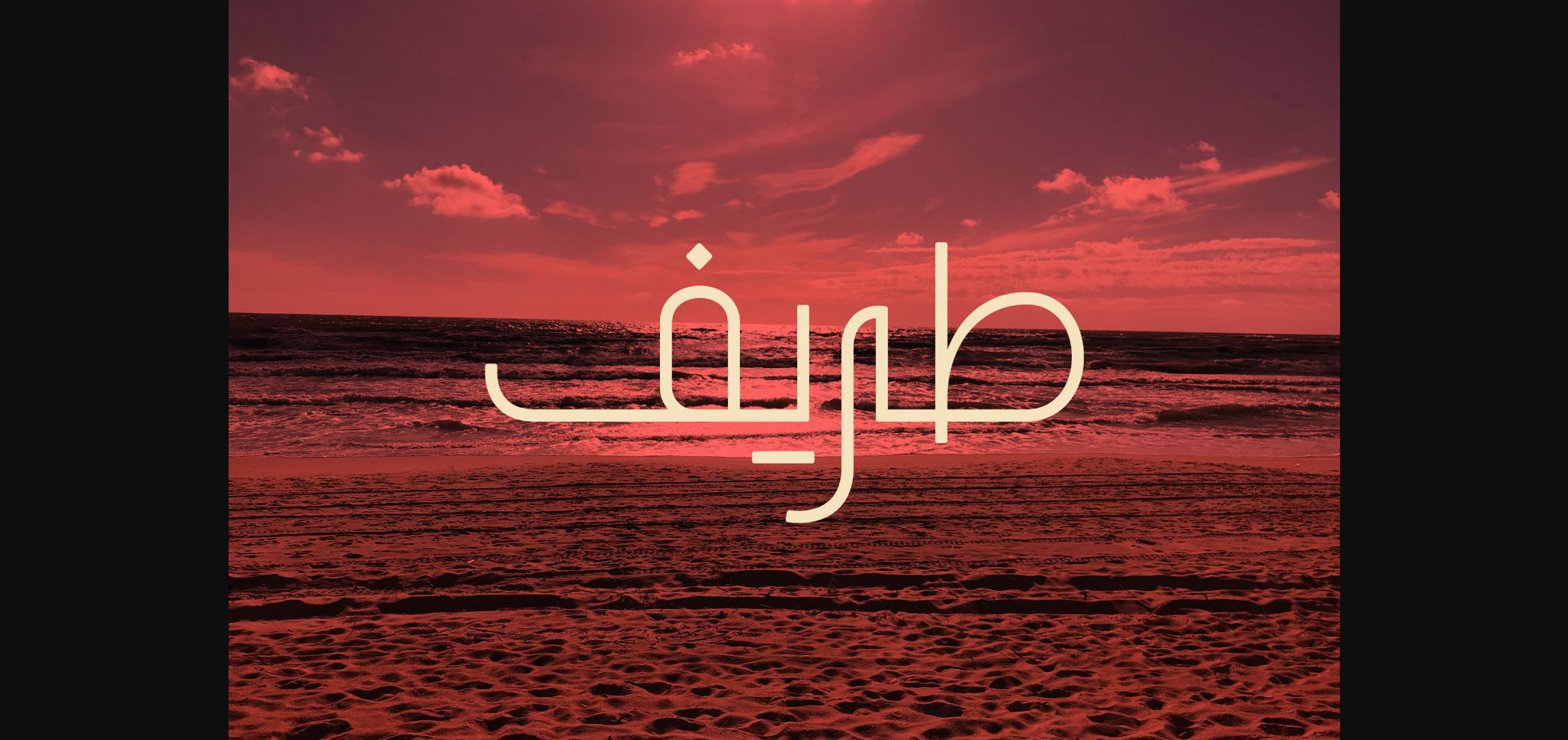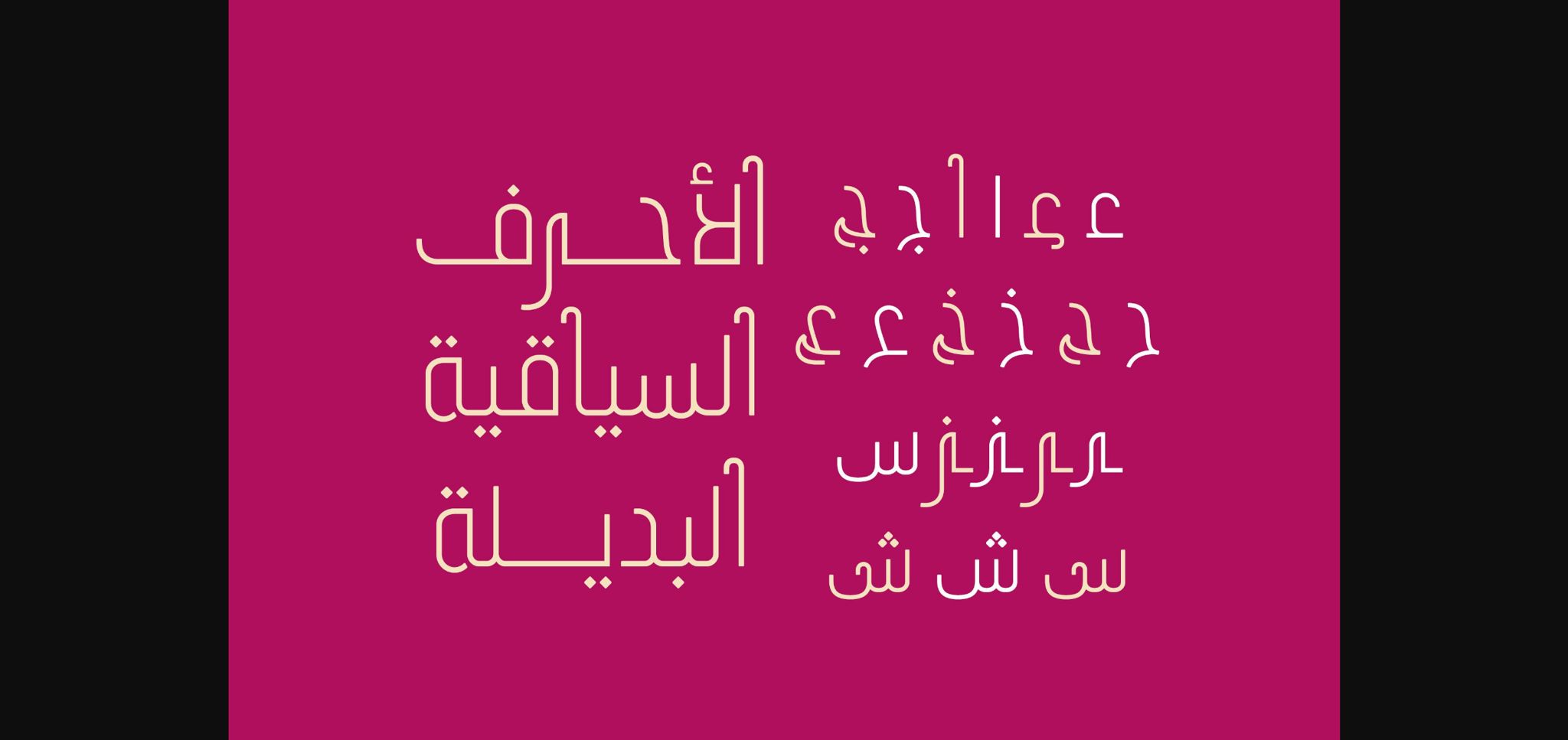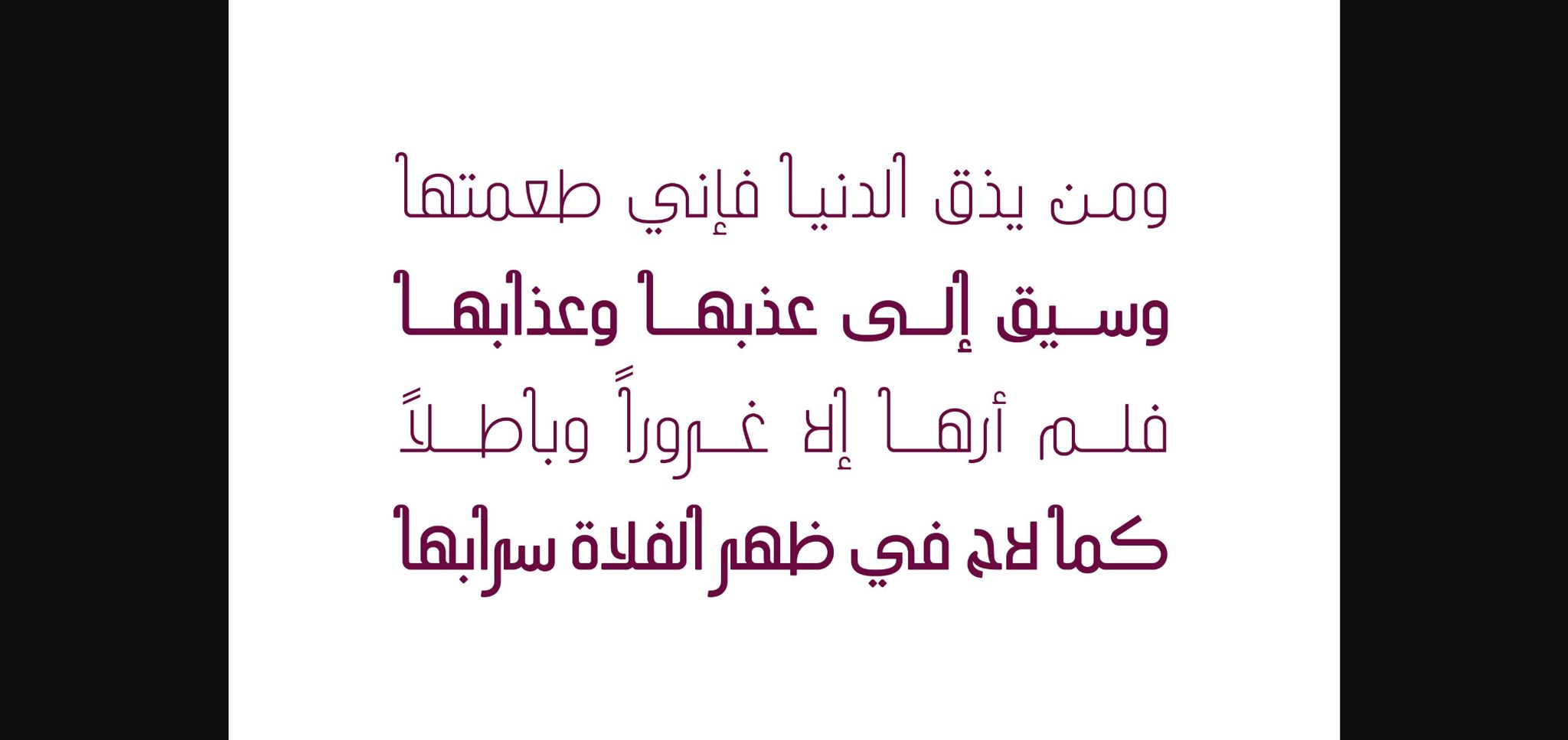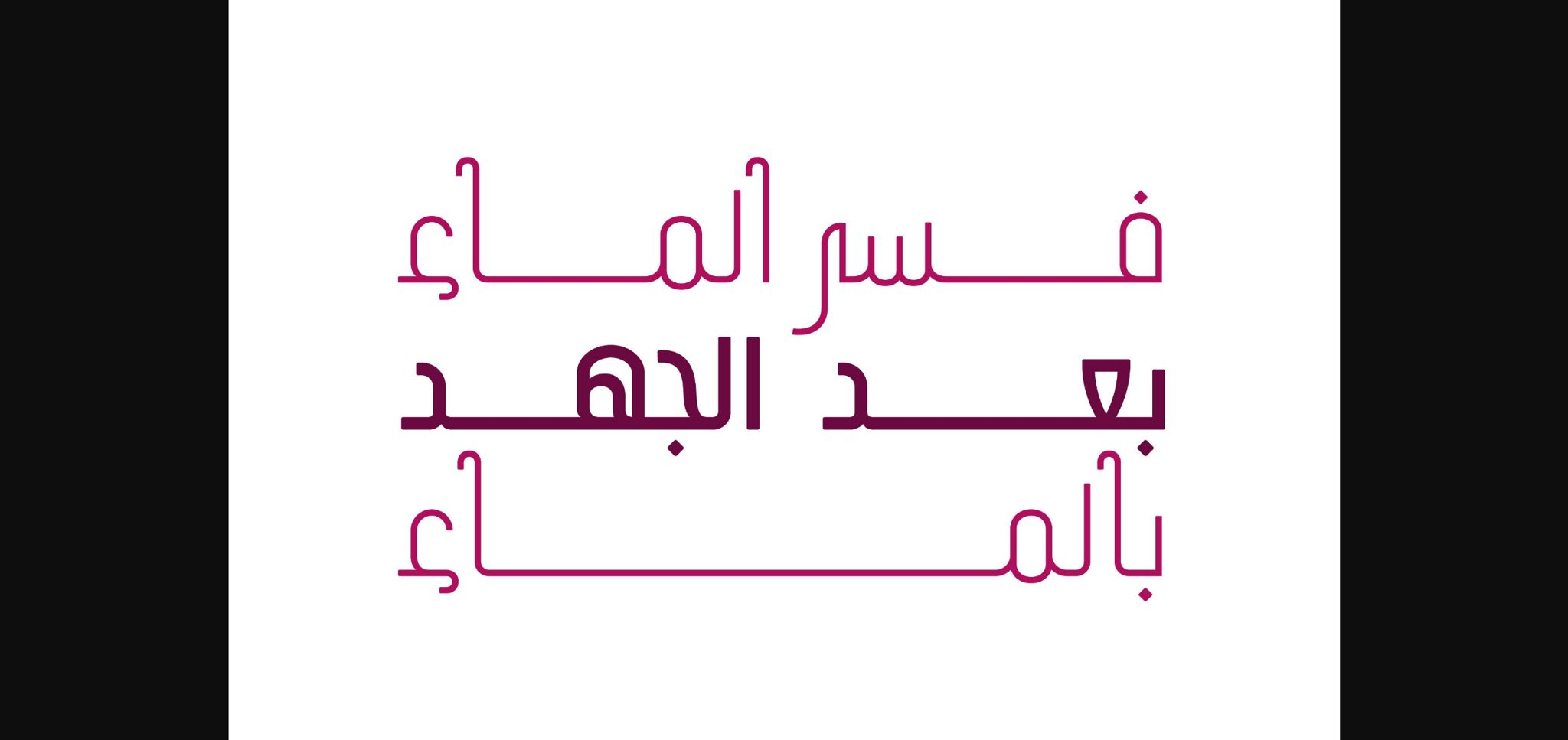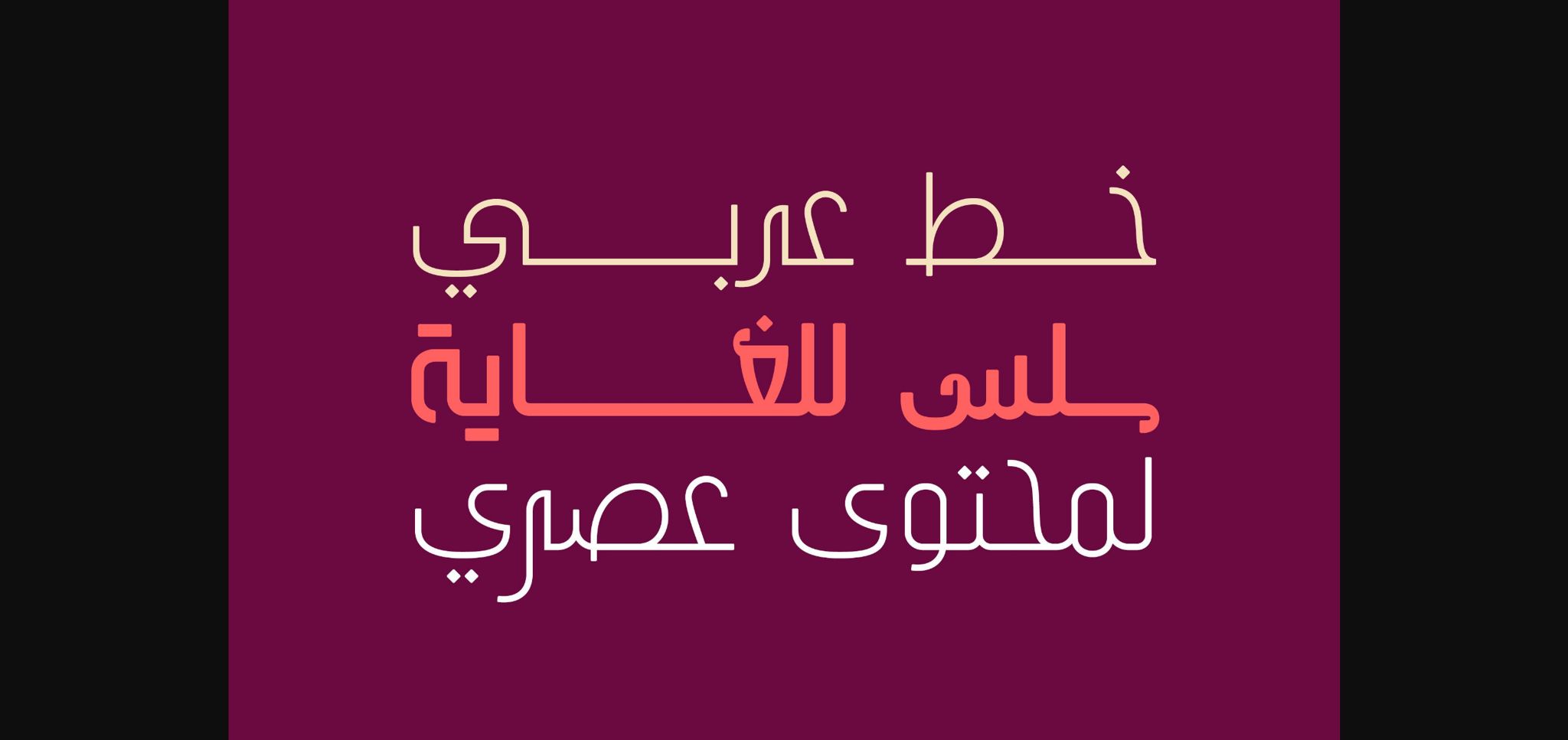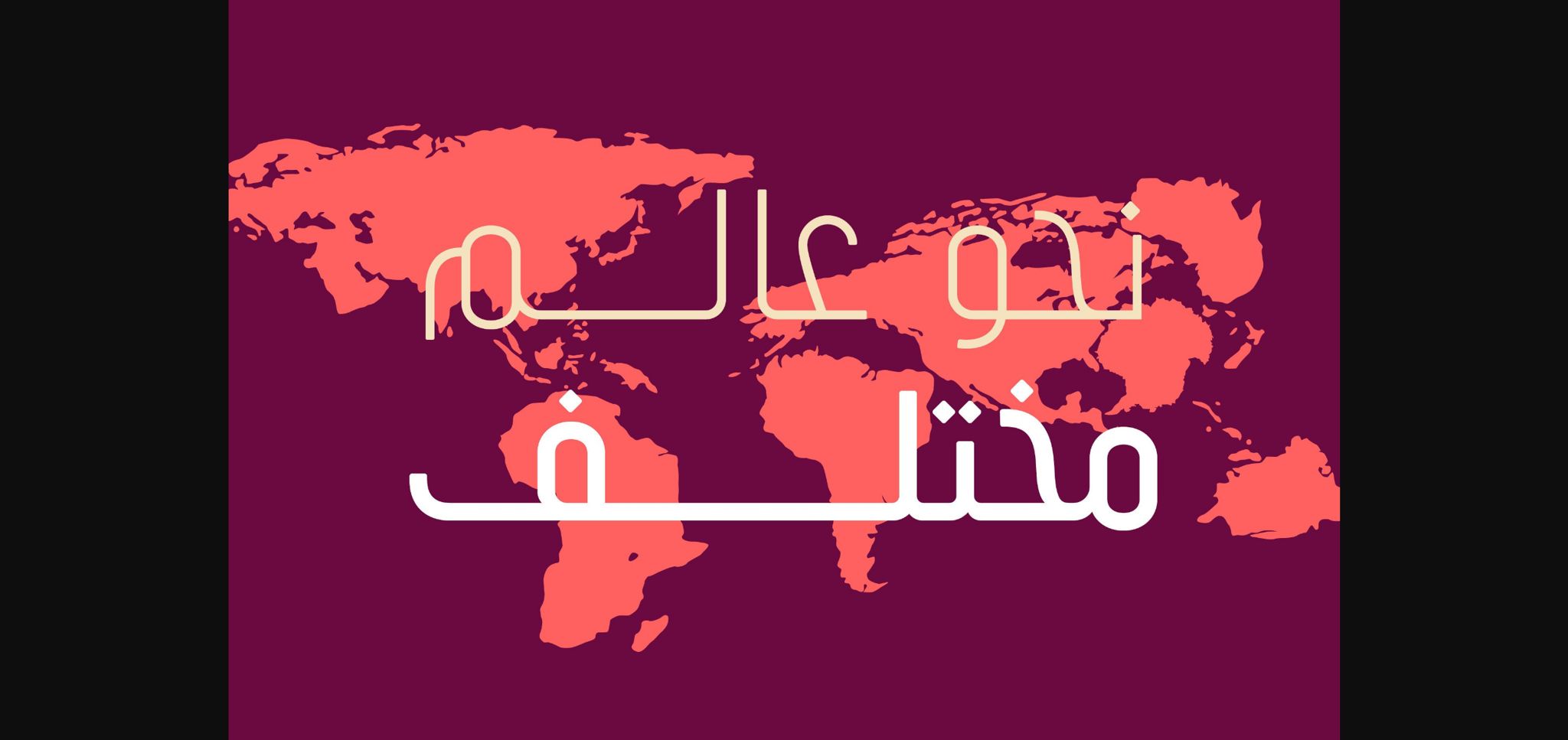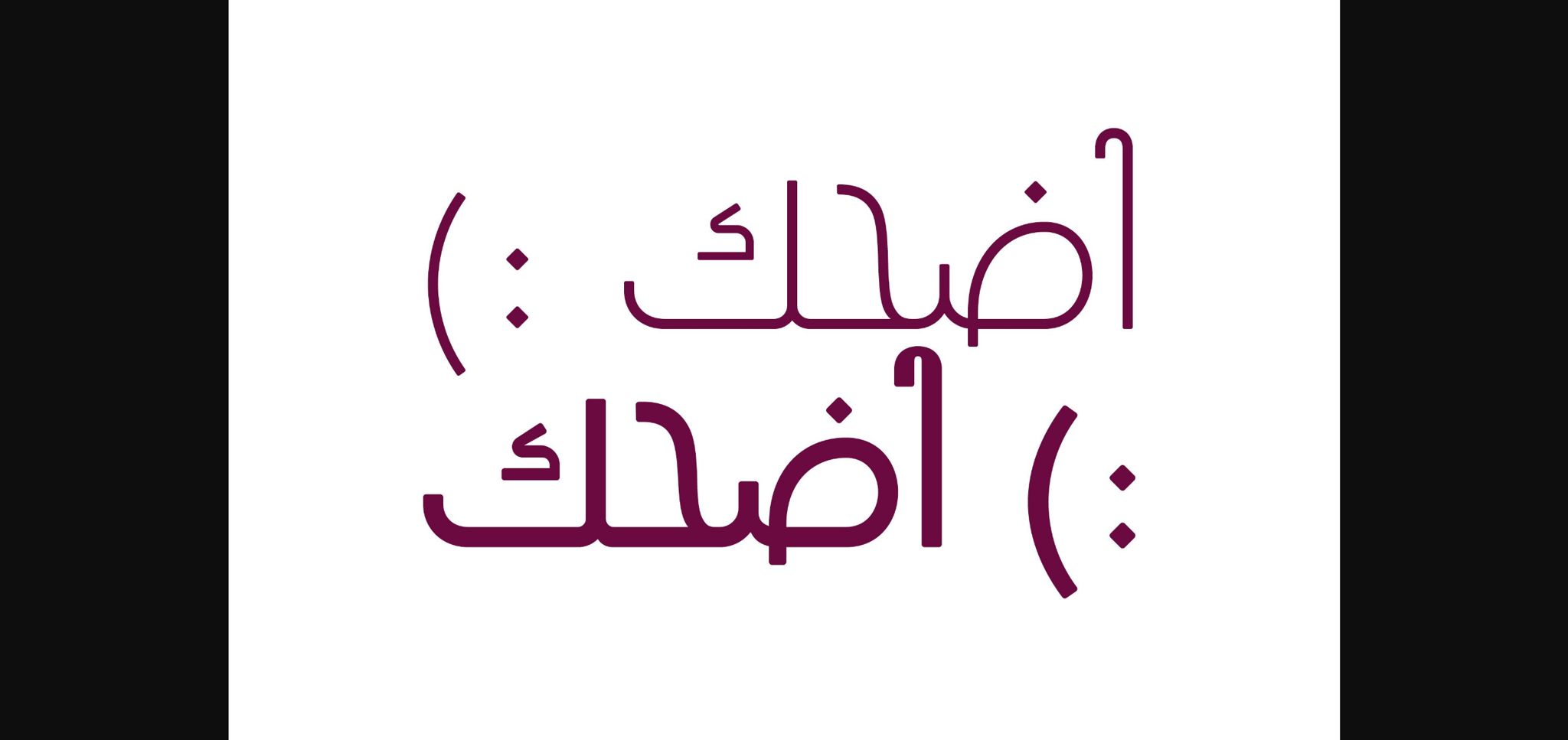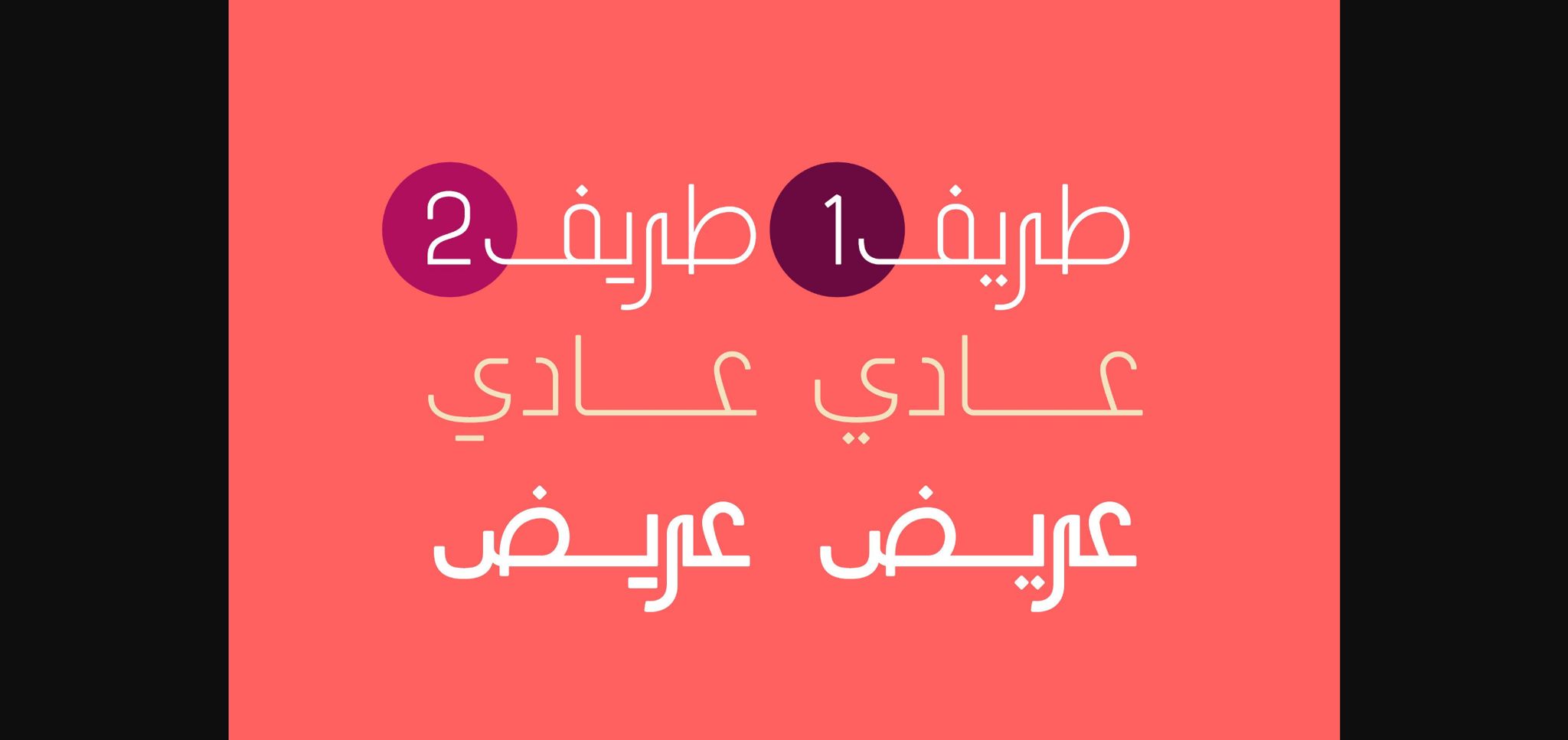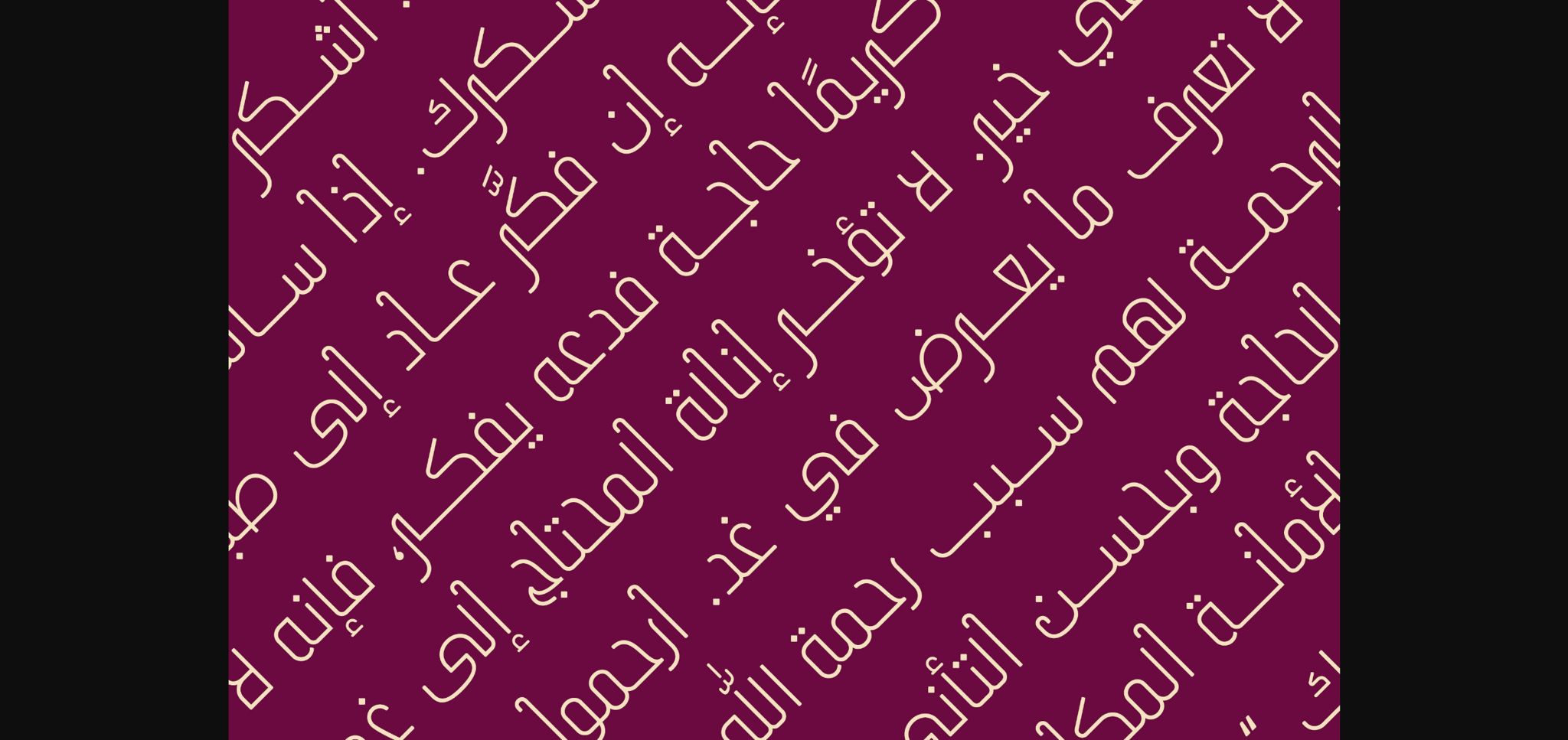
Tareef Font
About Tareef Font
Tareef (the Arabic word for ‘Quaint’) is an Arabic typeface that features a modern letterform design. Incredibly versatile and elegant, this font is suitable for a wide range of projects.